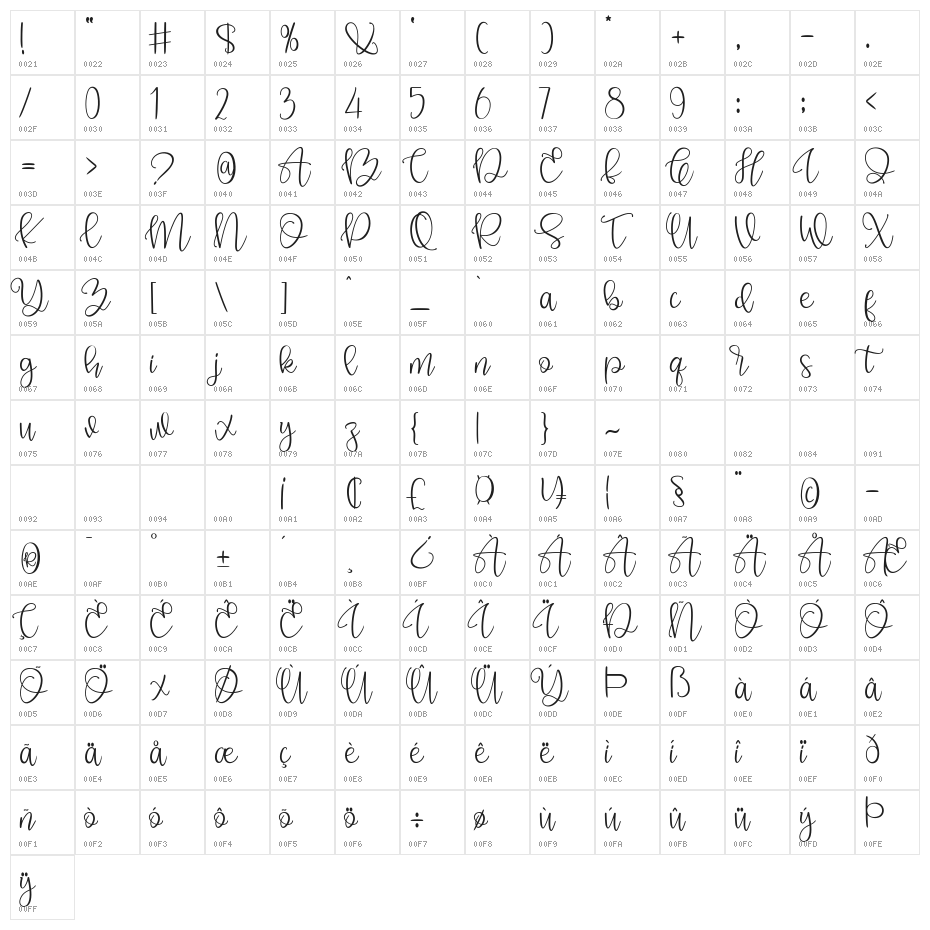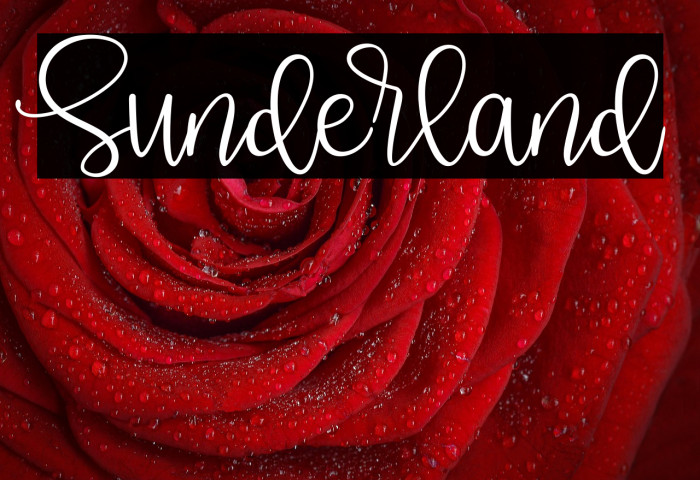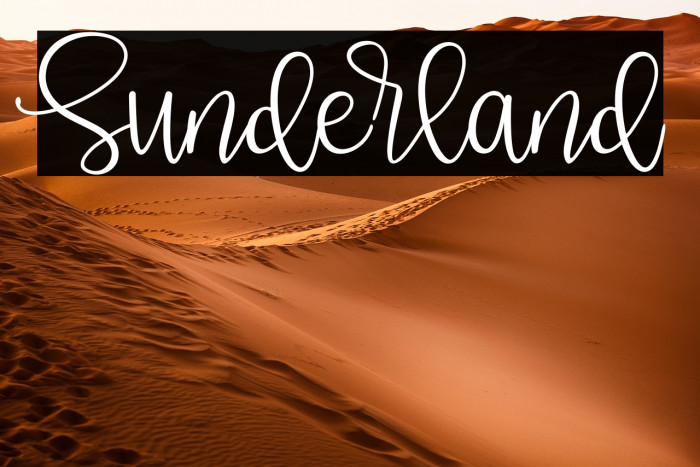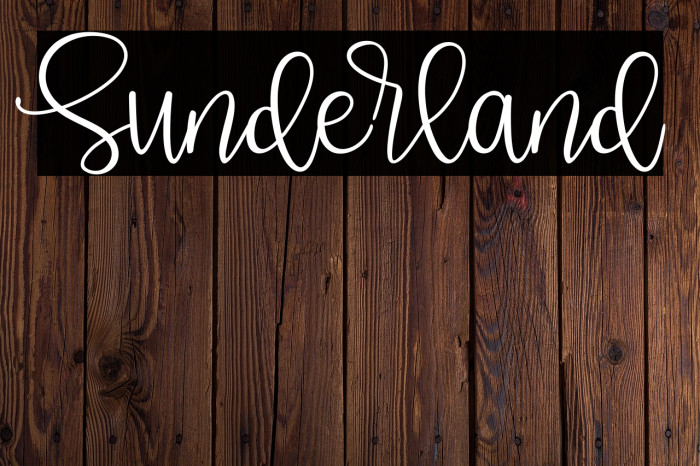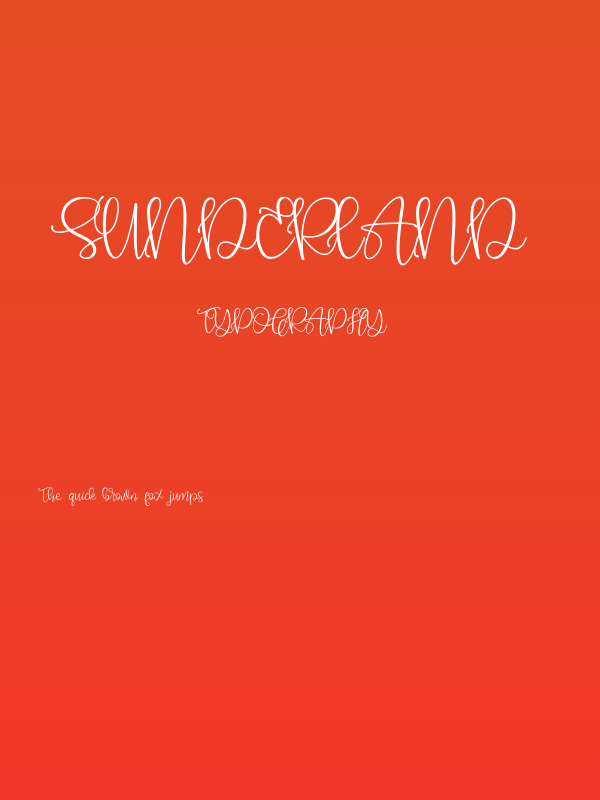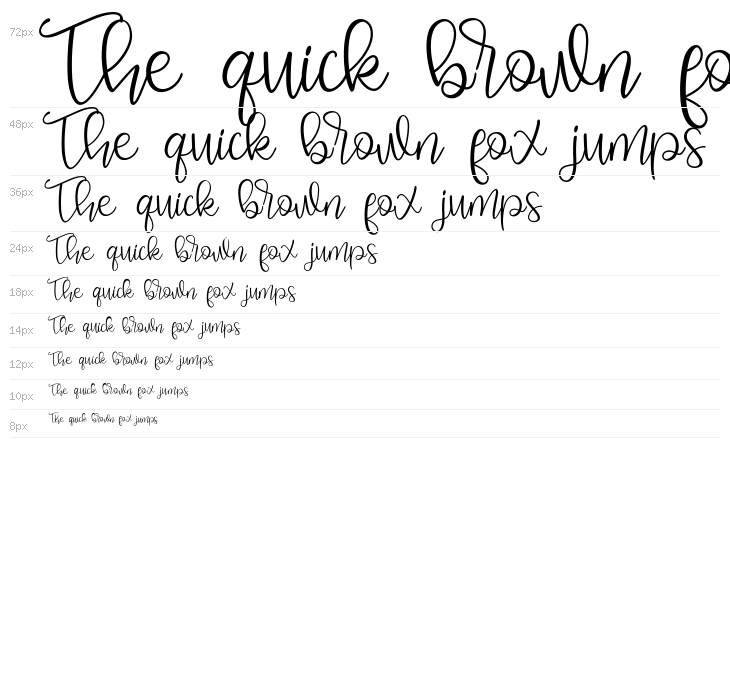
Sunderland Font
Sunderland Description
This font features a lively and expressive handwritten style, characterized by its fluid, cursive letterforms. The uppercase letters are intricately connected, creating a sense of movement and elegance. The lowercase letters maintain a consistent flow, with loops and curves that enhance the font's playful nature. Numbers and special characters are designed to match the overall aesthetic, ensuring cohesion across all elements. The font's unique style makes it suitable for creative and artistic projects, where a personal touch is desired.
| Use Case | Logos, Invitations, Artistic projects |
| Proposed Projects | Ideal for wedding invitations, greeting cards, personal branding, and artistic projects. |